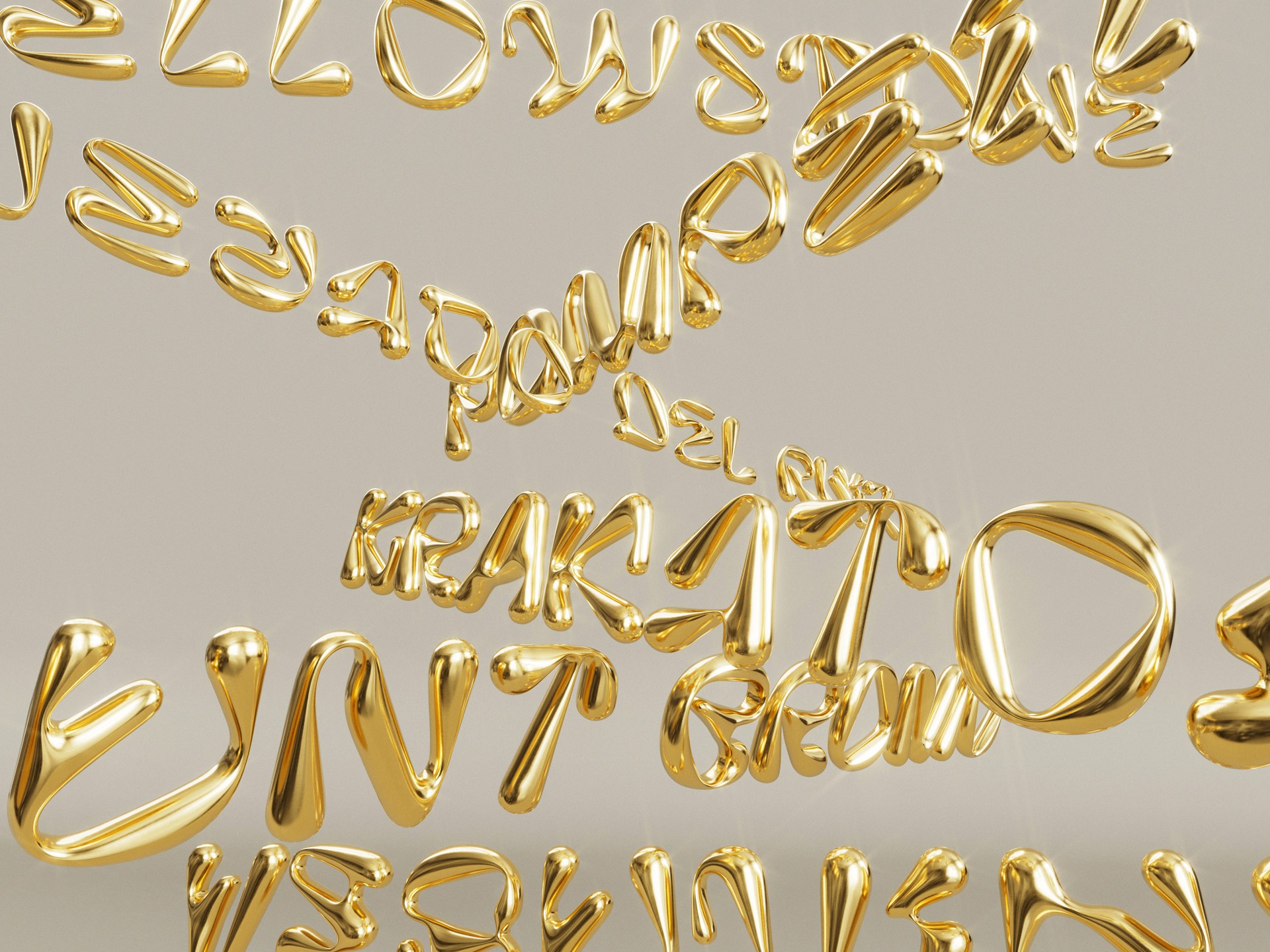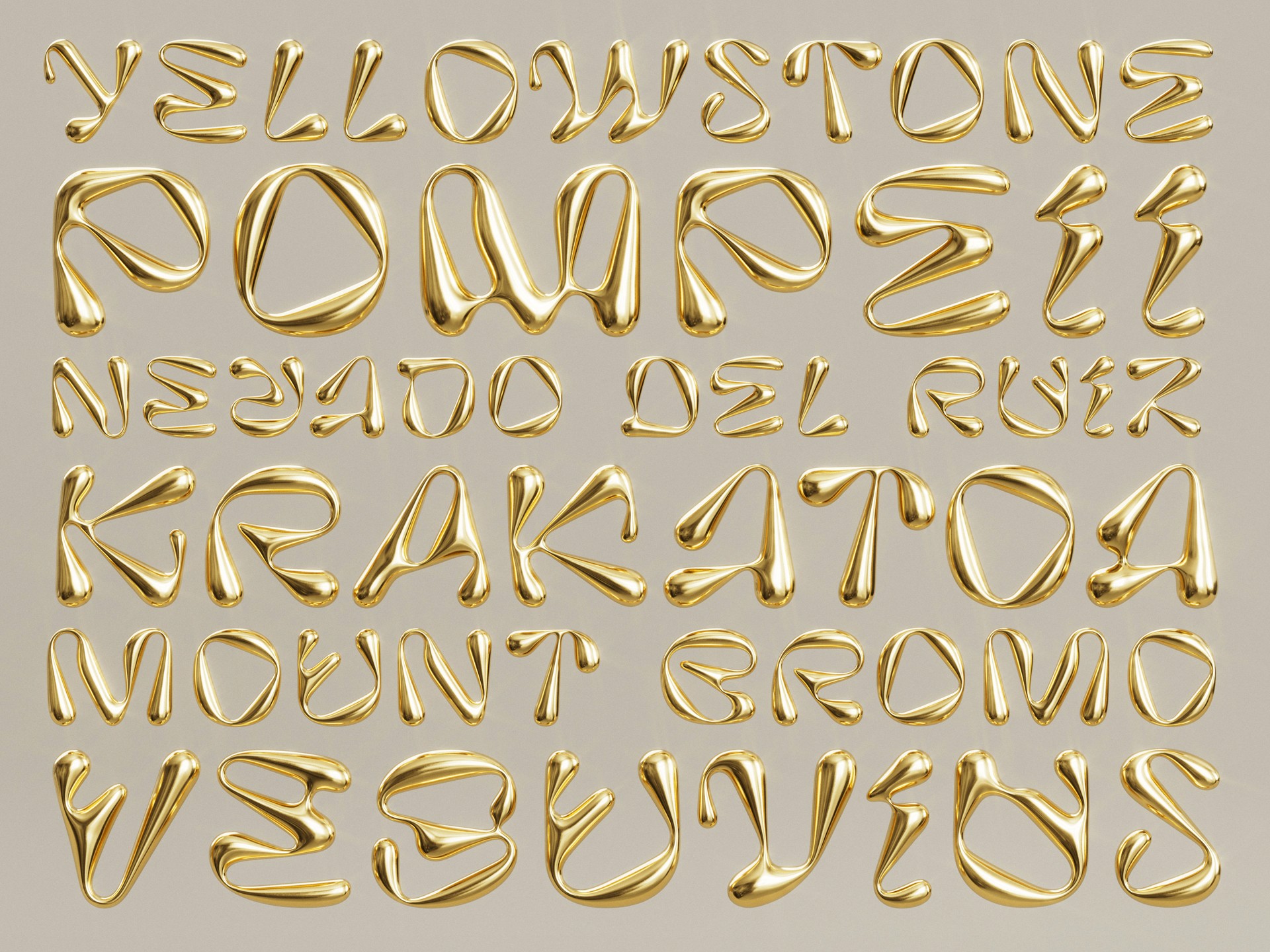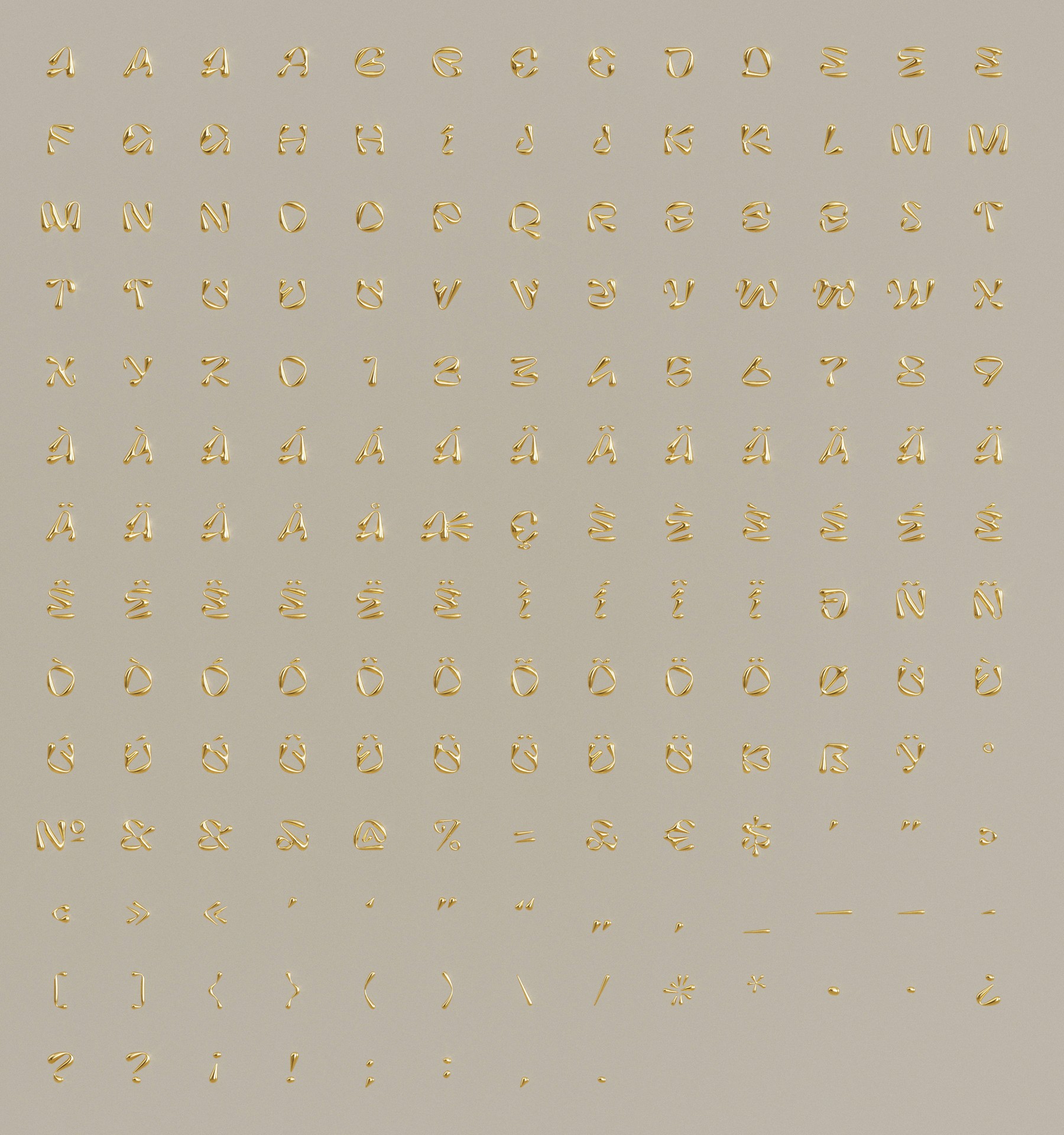
TC Pilowlava
Vincent Wagner
Original Pilowlava Designers
Jérémy Landes, Anton Moglia
TC Pilowlava is a re-release of Pilowlava 3D, the typeface that started my journey into 3D type design. Respecting the concept of the original, TC Pilowlava is an organic translation of form from 2D to 3D space.
With a love for Pilowlava and an admiration for Velvetyne's work, I approached VTF with the idea of doing a 3d version of Pilowlava back in 2020. Luckily, Jérémy Landes and Anton Moglia, the designers of the original Pilowlava, were very supportive of the project and helped shape the conceptual idea.This re-release is a revised version with the original extended latin character set.